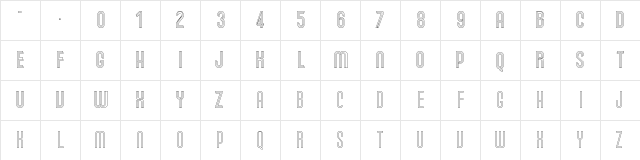
ABFonts RCD Mallorca 2012 Regular
Foundry: ABFonts
Design Context for ABFonts RCD Mallorca 2012
ABFonts RCD Mallorca 2012 is a composed and adaptable typeface that performs quietly and consistently across a wide range of design contexts.